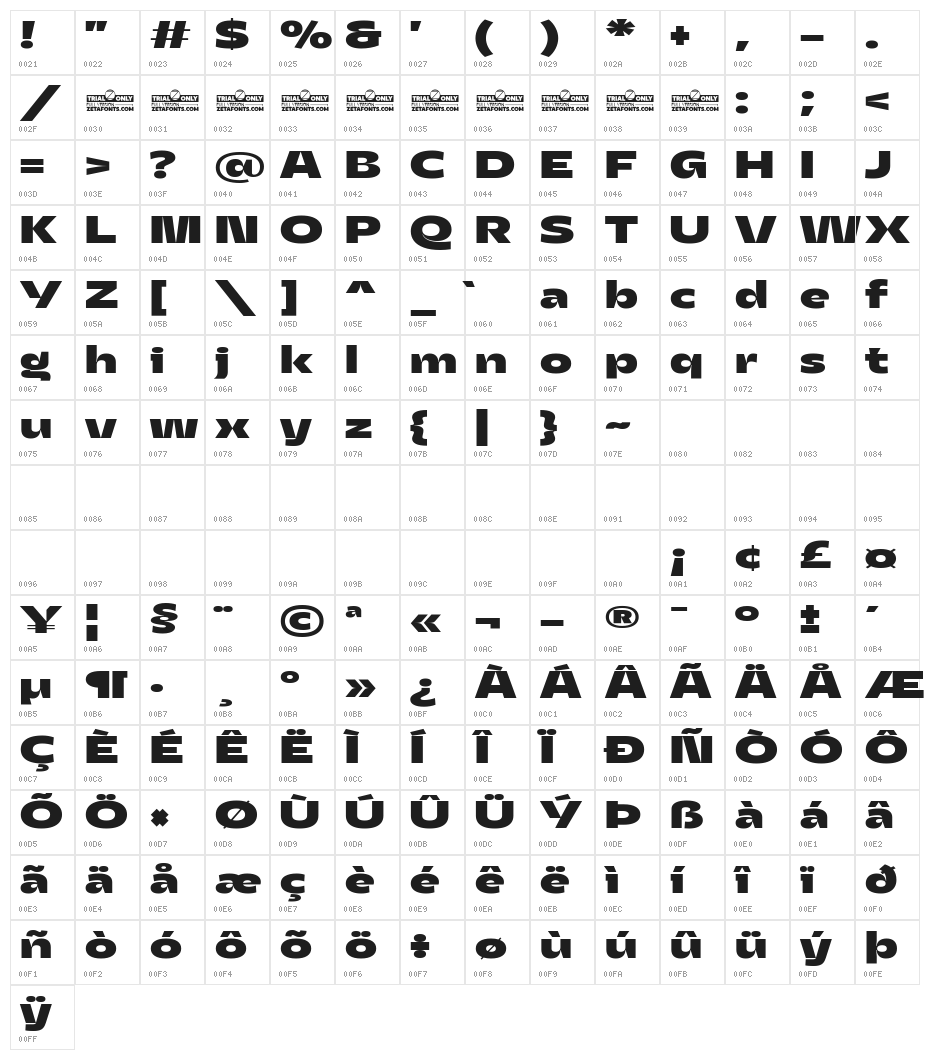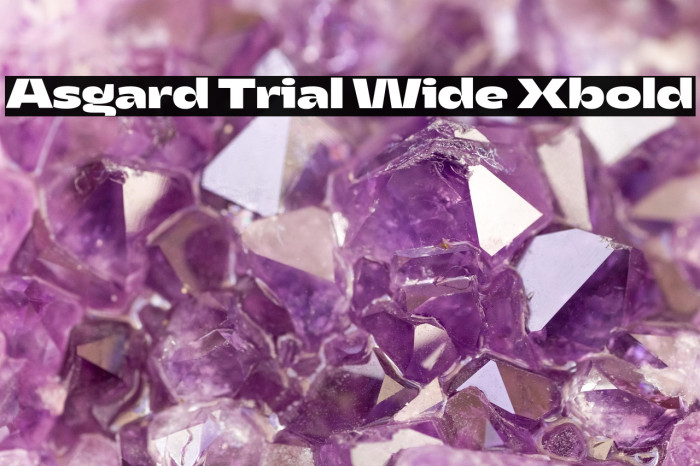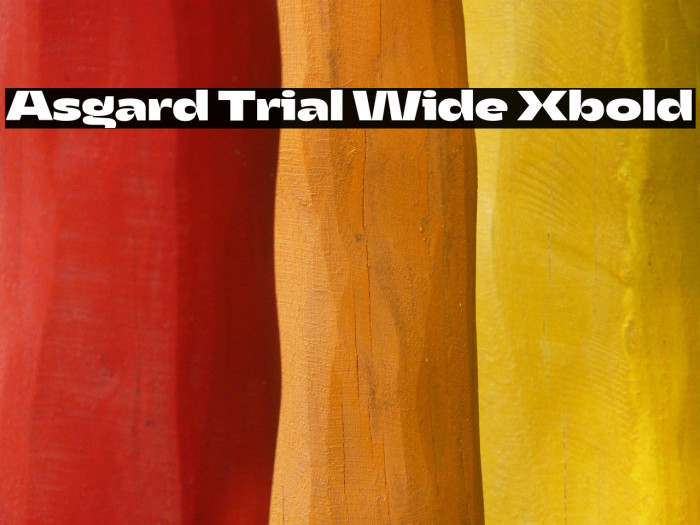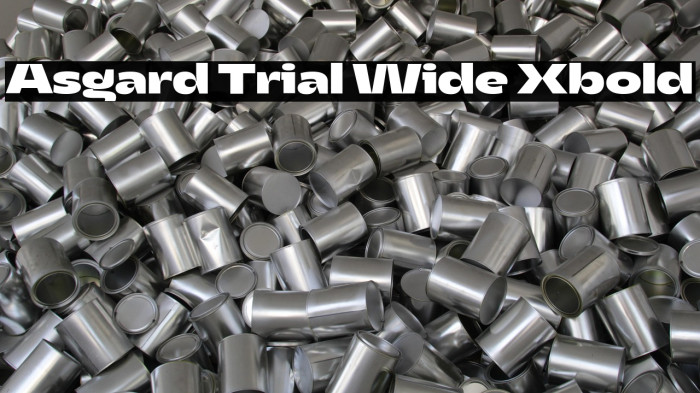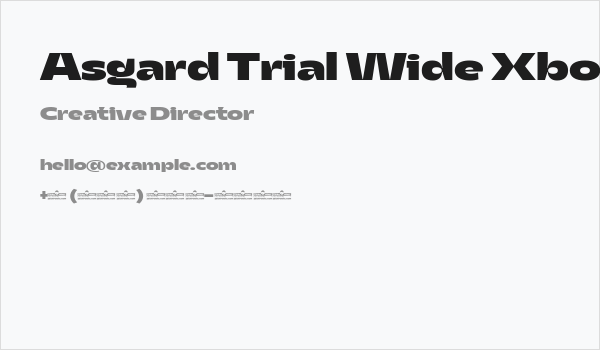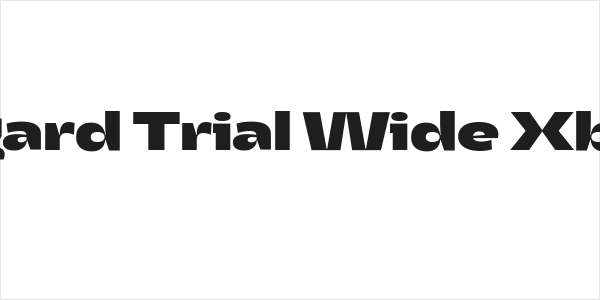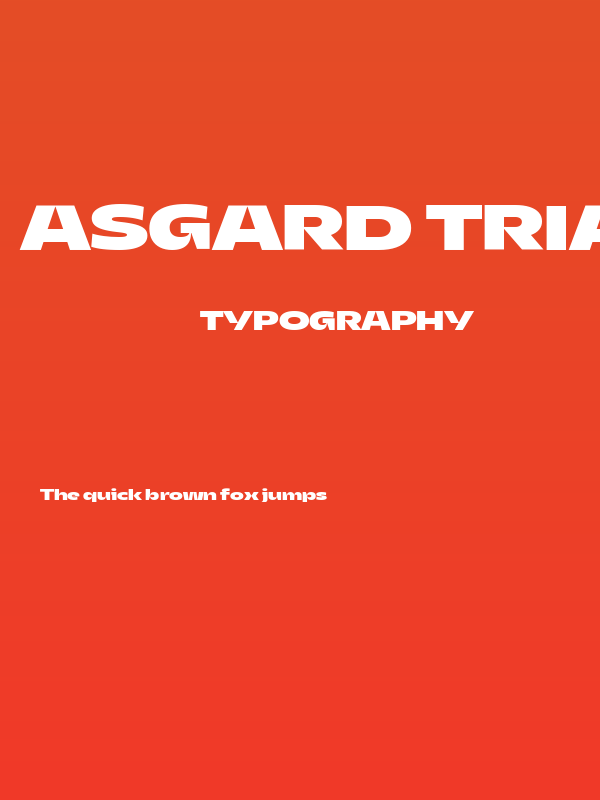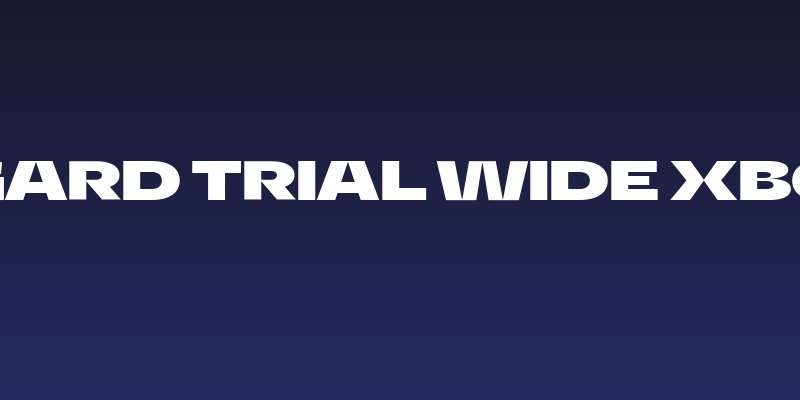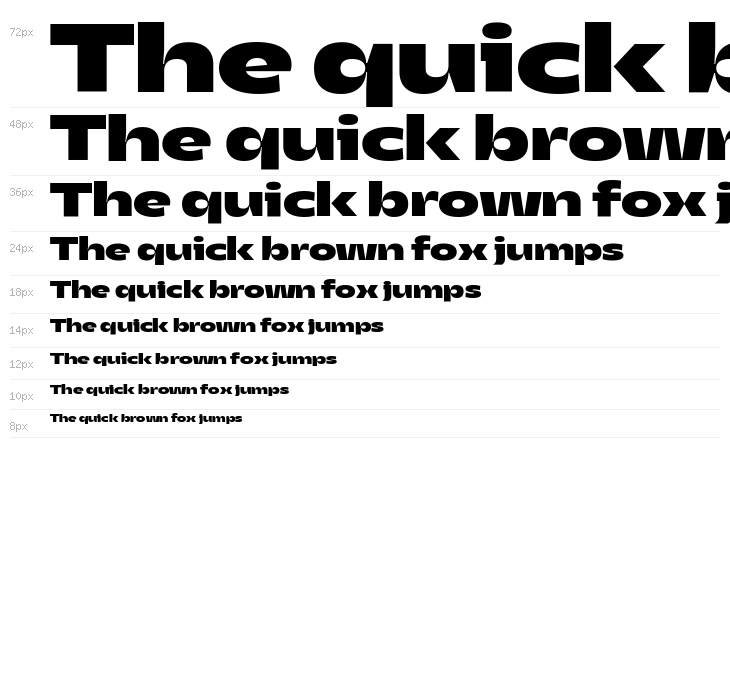
Asgard Trial Wide Xbold Font
Asgard Trial Wide Xbold Description
This font features a bold and wide design, characterized by strong geometric shapes and a modern aesthetic. The uppercase letters are particularly striking, with a consistent thickness that gives them a powerful presence. The lowercase letters maintain the same boldness, ensuring readability while adding a touch of uniqueness with their slightly rounded edges. The numerals and special characters are equally bold, making them stand out effectively. This font's overall style is both contemporary and assertive, making it suitable for impactful designs.
| Proposed Projects | Ideal for branding, posters, headlines, and any design requiring a strong visual impact. |